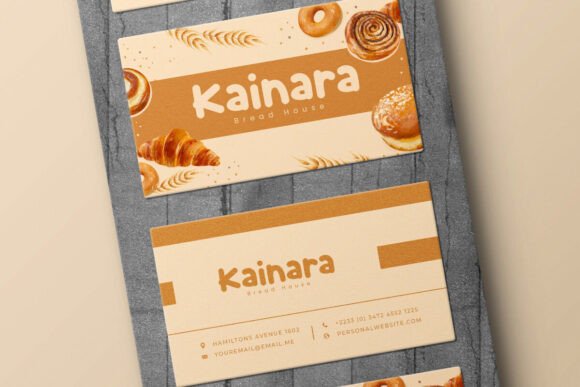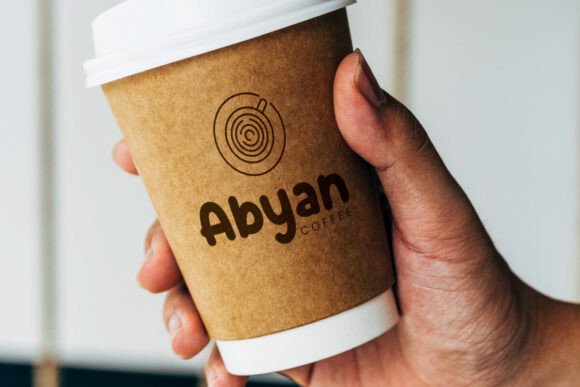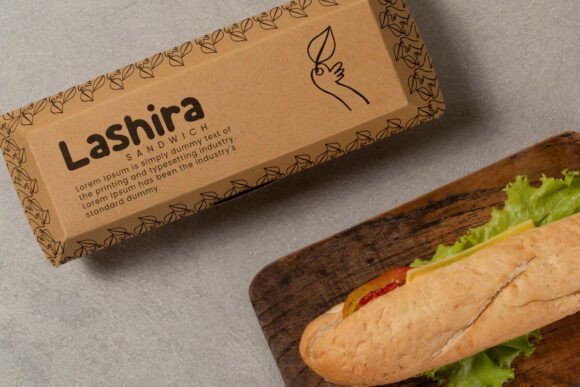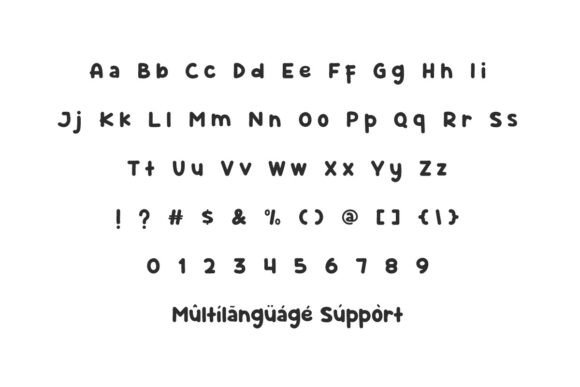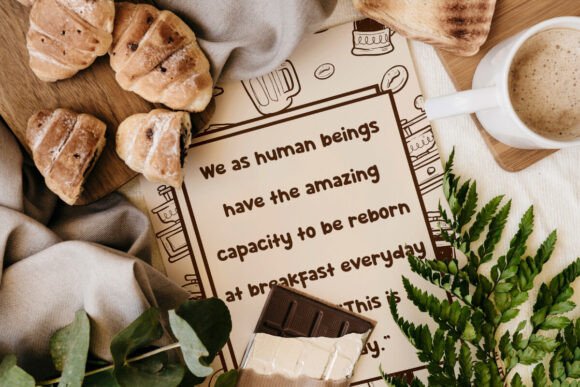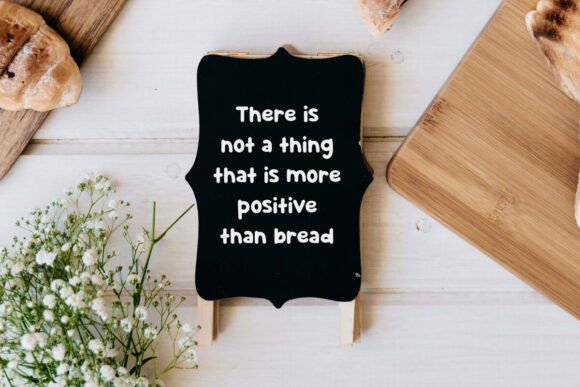
Introduction to Nice Info Font
Nice Info Font is a playful comic display.
This font is what you usually see in comic books or childrenโs film series Its small shape with thick lines makes it look very adorable.